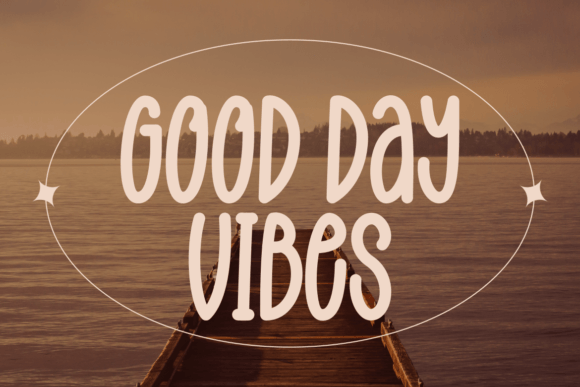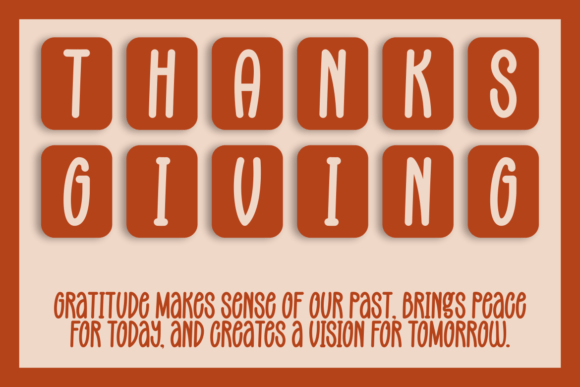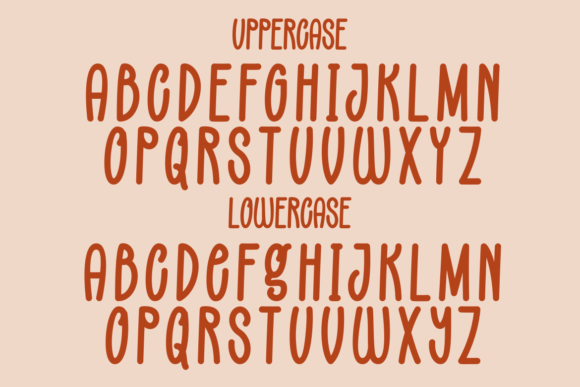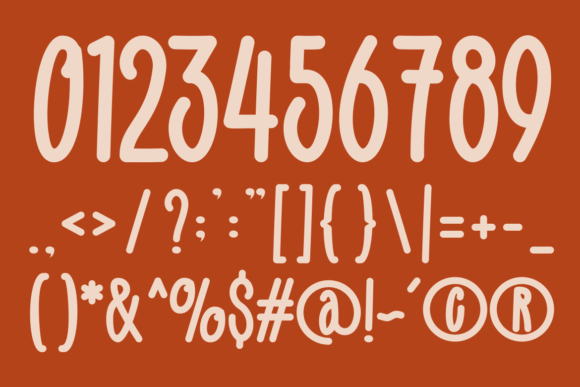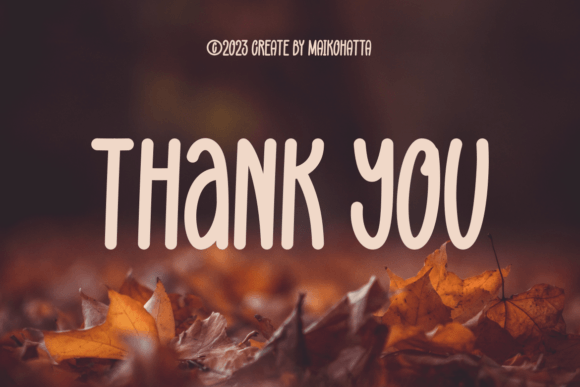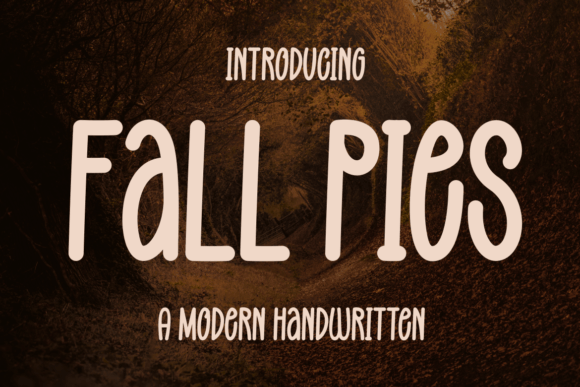
Introducing Fall Pies Font: Capturing the Essence of Autumn
As the leaves change colors and the air grows crisper, the autumn season brings with it a sense of nostalgia and natural wonder. For designers and crafters, this time of year offers endless inspiration for creative projects that evoke the warmth and coziness of fall. One font that perfectly captures the essence of the season is Fall Pies Font, a beautiful and delicate typeface that adds a touch of softness and tranquility to any design.
The Characteristics of Fall Pies Font
Fall Pies Font features a unique style that is reminiscent of traditional autumnal designs. The font’s delicate lines and gentle curves add dimension to each letter character, creating a sense of softness and serenity. The overall effect is a warm and inviting aesthetic that immediately conjures up images of crunchy leaves, cozy sweaters, and warm apple cider.
Perfect for Autumn-Themed Projects
Fall Pies Font is highly suitable for projects that aim to depict the beauty and charm of the autumn season. Whether you’re designing invitations, greeting cards, posters, or other creative projects, this font is sure to add a stunning natural touch to your work. The font’s rustic yet elegant feel makes it perfect for a wide range of applications, from seasonal marketing materials to personal craft projects.
Design Ideas with Fall Pies Font
So, how can you use Fall Pies Font in your designs? Here are a few ideas to get you started:
- Autumn Invitations: Use Fall Pies Font to create warm and inviting invitations for fall parties, harvest festivals, or seasonal gatherings.
- Seasonal Greeting Cards: Add a personal touch to your greeting cards with Fall Pies Font, perfect for sending warm wishes to friends and family during the autumn season.
- Fall Posters: Create eye-catching posters that showcase the beauty of fall with Fall Pies Font, ideal for promoting seasonal events, sales, or promotions.
- Craft Projects: Use Fall Pies Font to add a touch of autumnal charm to your craft projects, such as handmade cards, scrapbook pages, or DIY decorations.
Why Choose Fall Pies Font?
So, what sets Fall Pies Font apart from other fonts? Here are just a few reasons why designers and crafters love this font:
- Unique Style: Fall Pies Font features a distinctive style that is both rustic and elegant, making it perfect for autumn-themed designs.
- Highly Versatile: This font works well for a wide range of applications, from invitations and greeting cards to posters and craft projects.
- Easy to Read: Despite its delicate lines and curves, Fall Pies Font is highly legible, making it perfect for designs that require clear and easy-to-read text.
Tips for Using Fall Pies Font
To get the most out of Fall Pies Font, here are a few tips to keep in mind:
- Pair with Earthy Colors: Combine Fall Pies Font with earthy colors like orange, yellow, and brown to create a cohesive autumnal look.
- Experiment with Sizes: Play around with different font sizes to create visual interest and add emphasis to certain words or phrases.
- Add Natural Elements: Consider adding natural elements like leaves, flowers, or branches to your design to enhance the autumnal theme.
Fall Pies Font is a beautiful and versatile typeface that perfectly captures the essence of the autumn season. With its delicate lines, gentle curves, and rustic yet elegant feel, this font is highly suitable for a wide range of design projects. Whether you’re a designer, crafter, or simply someone who loves the fall season, Fall Pies Font is sure to become a favorite go-to font for all your autumn-themed creations.